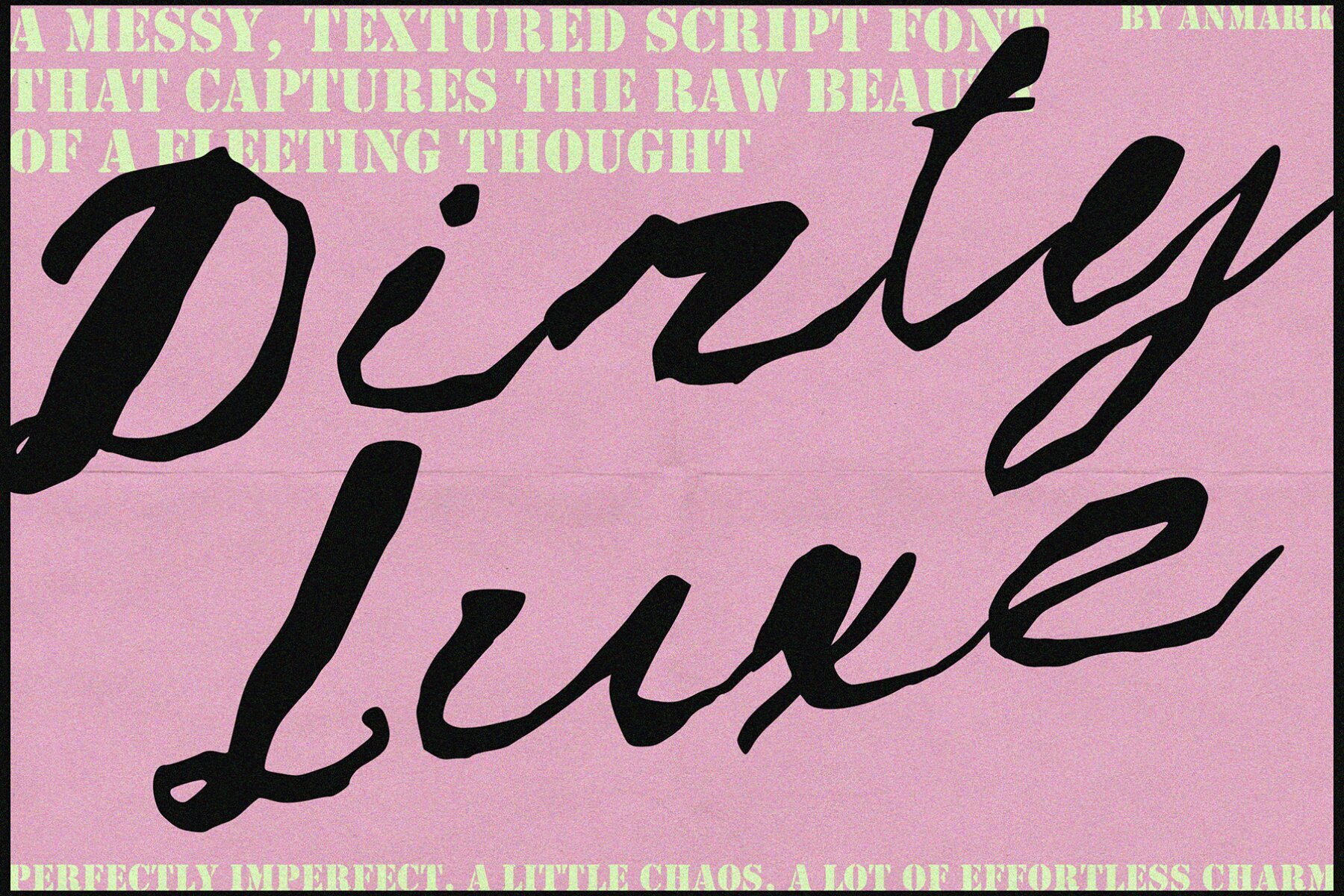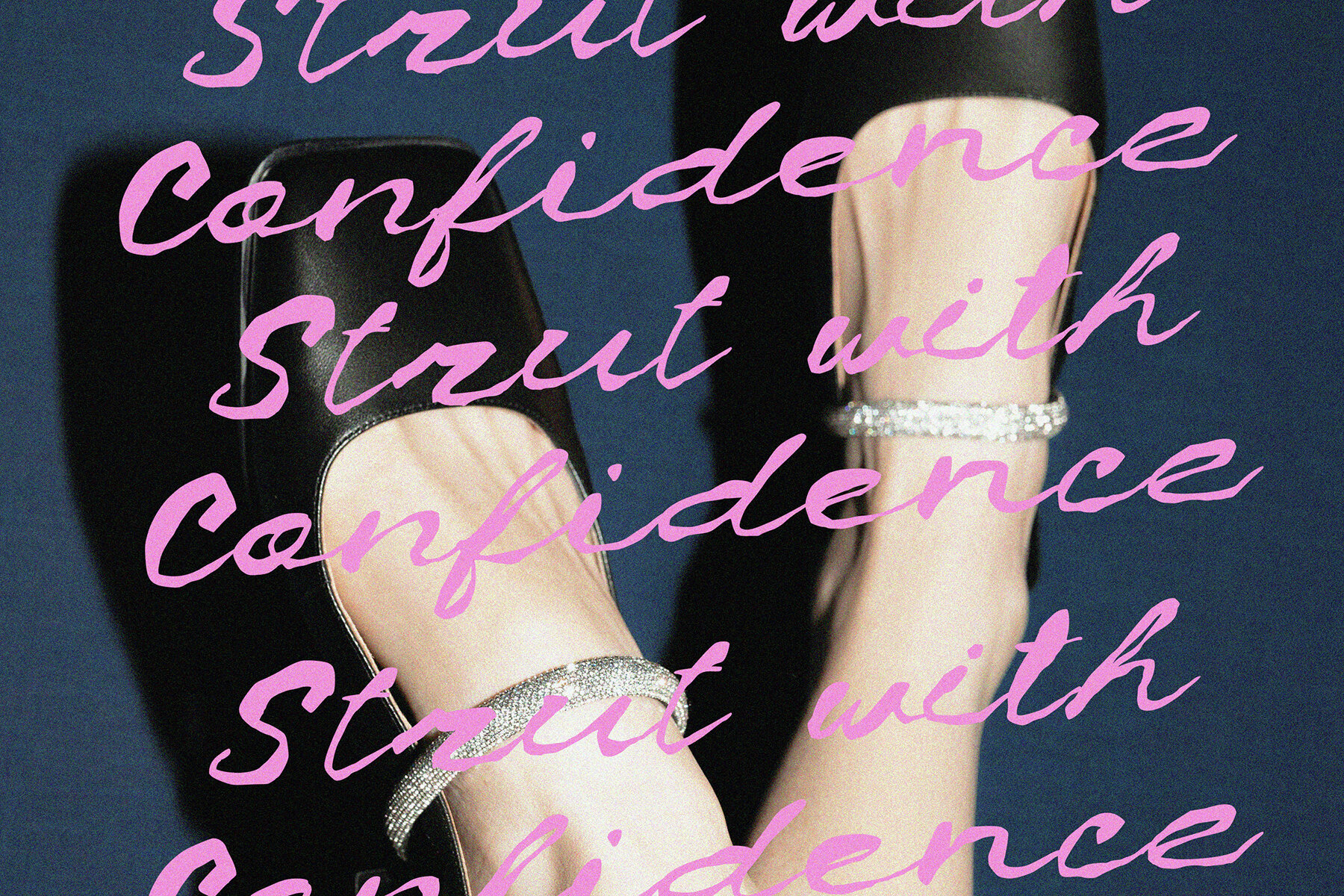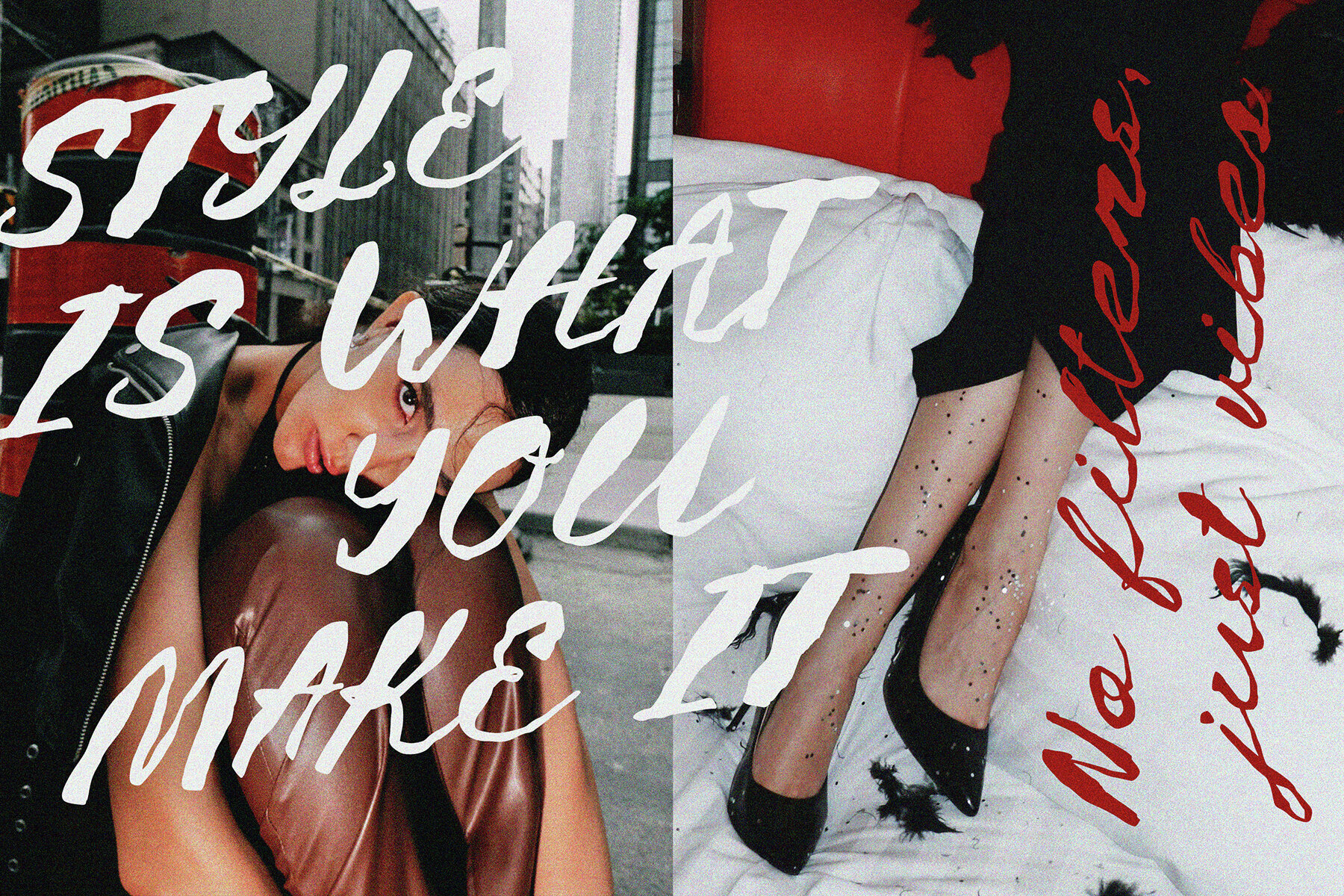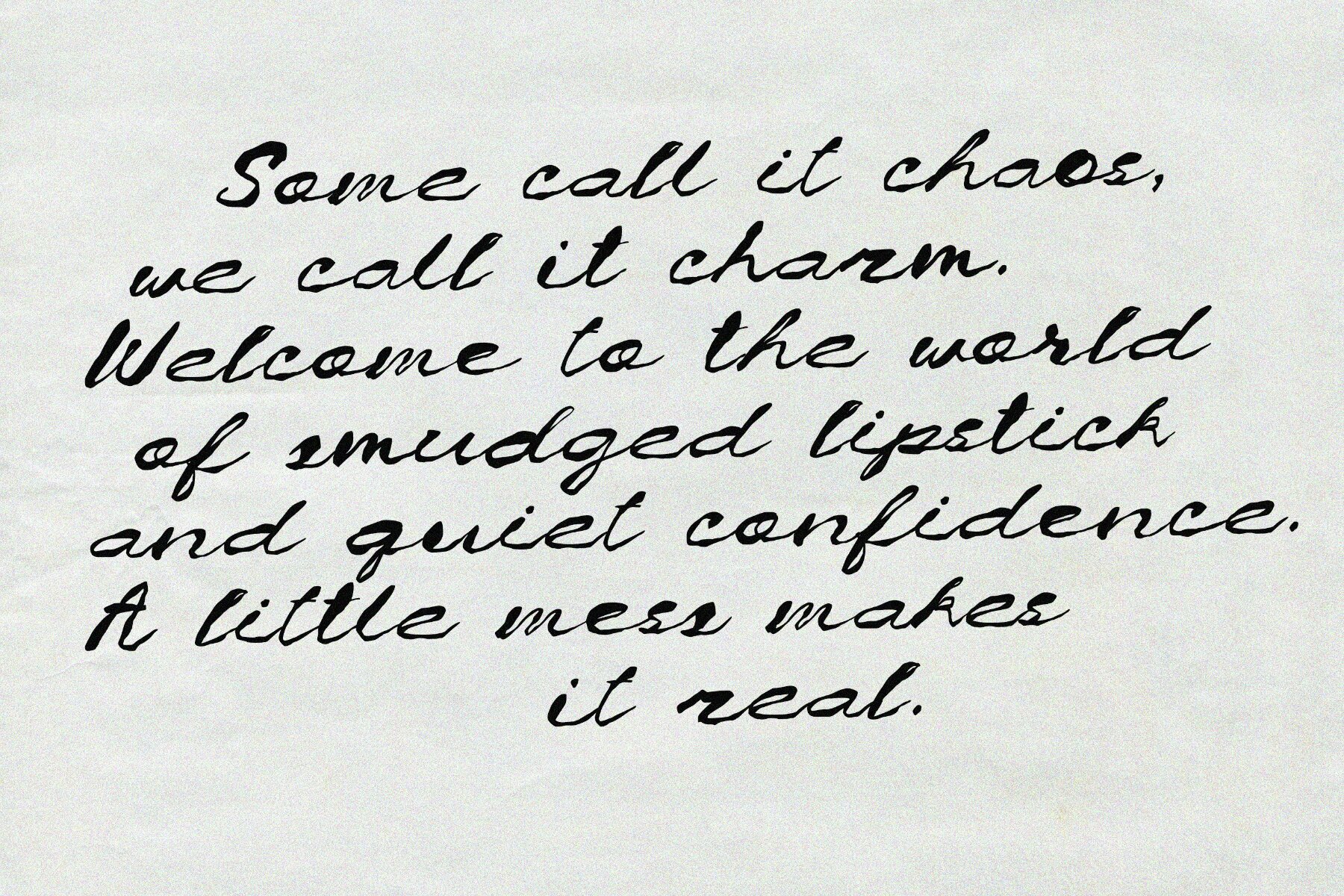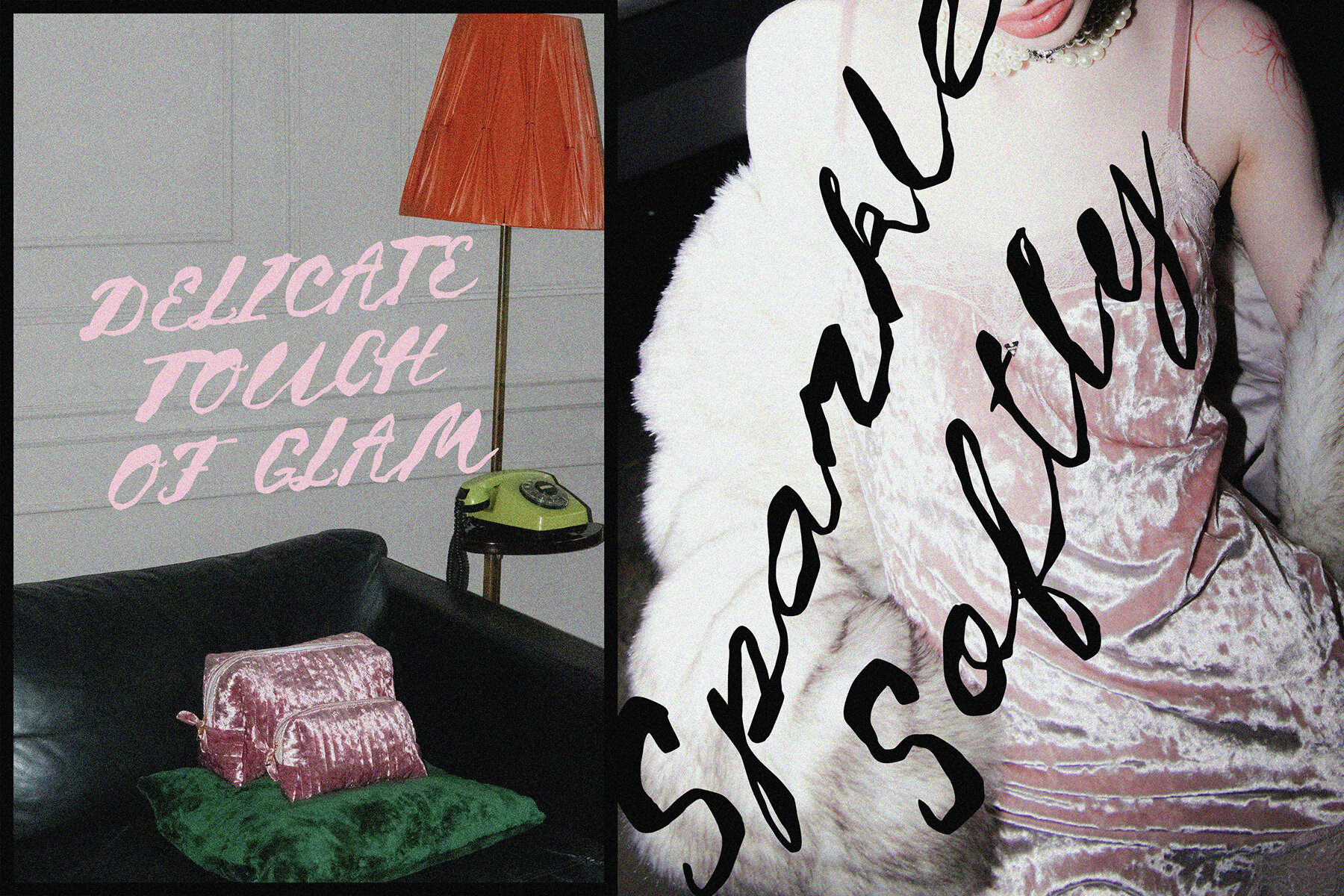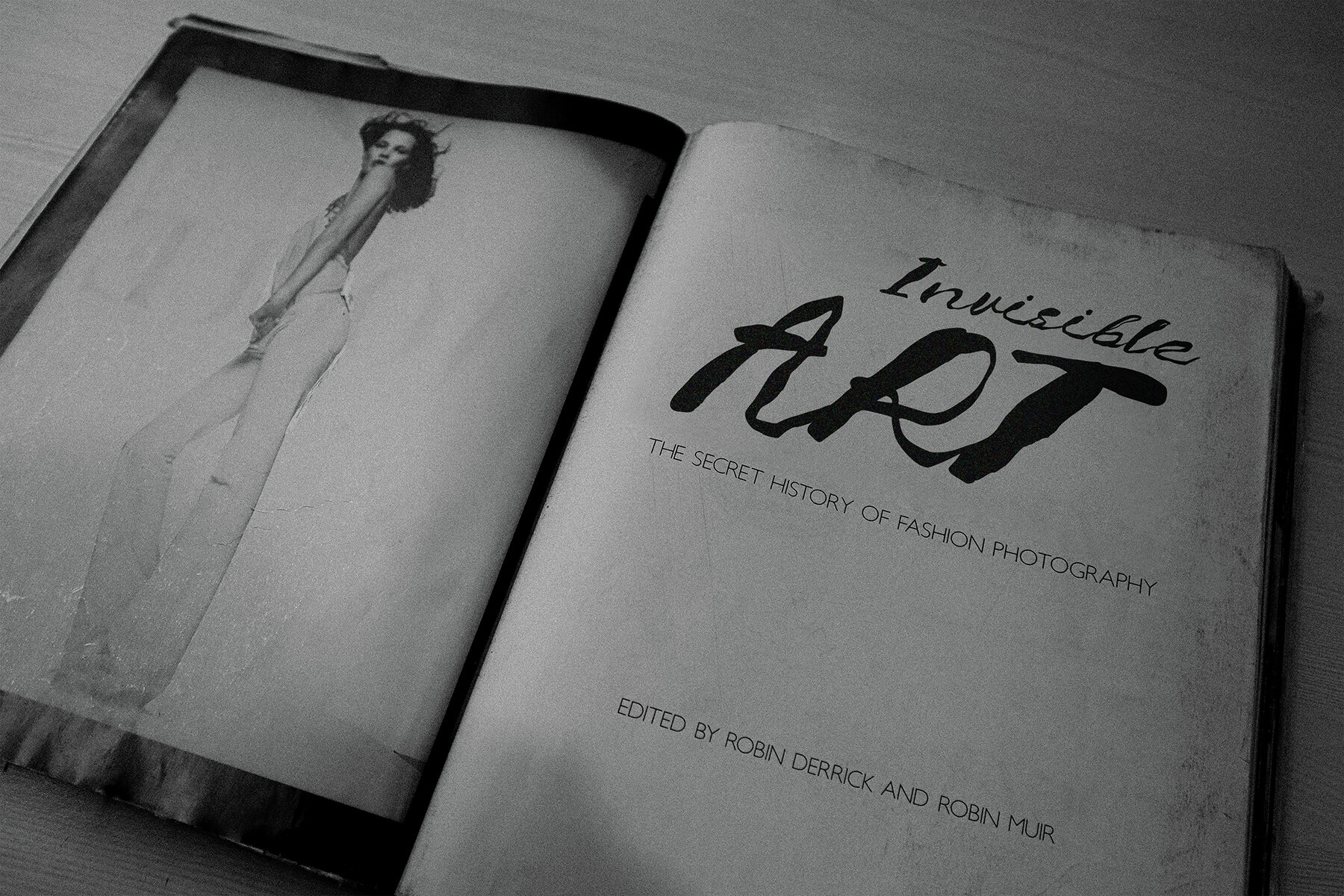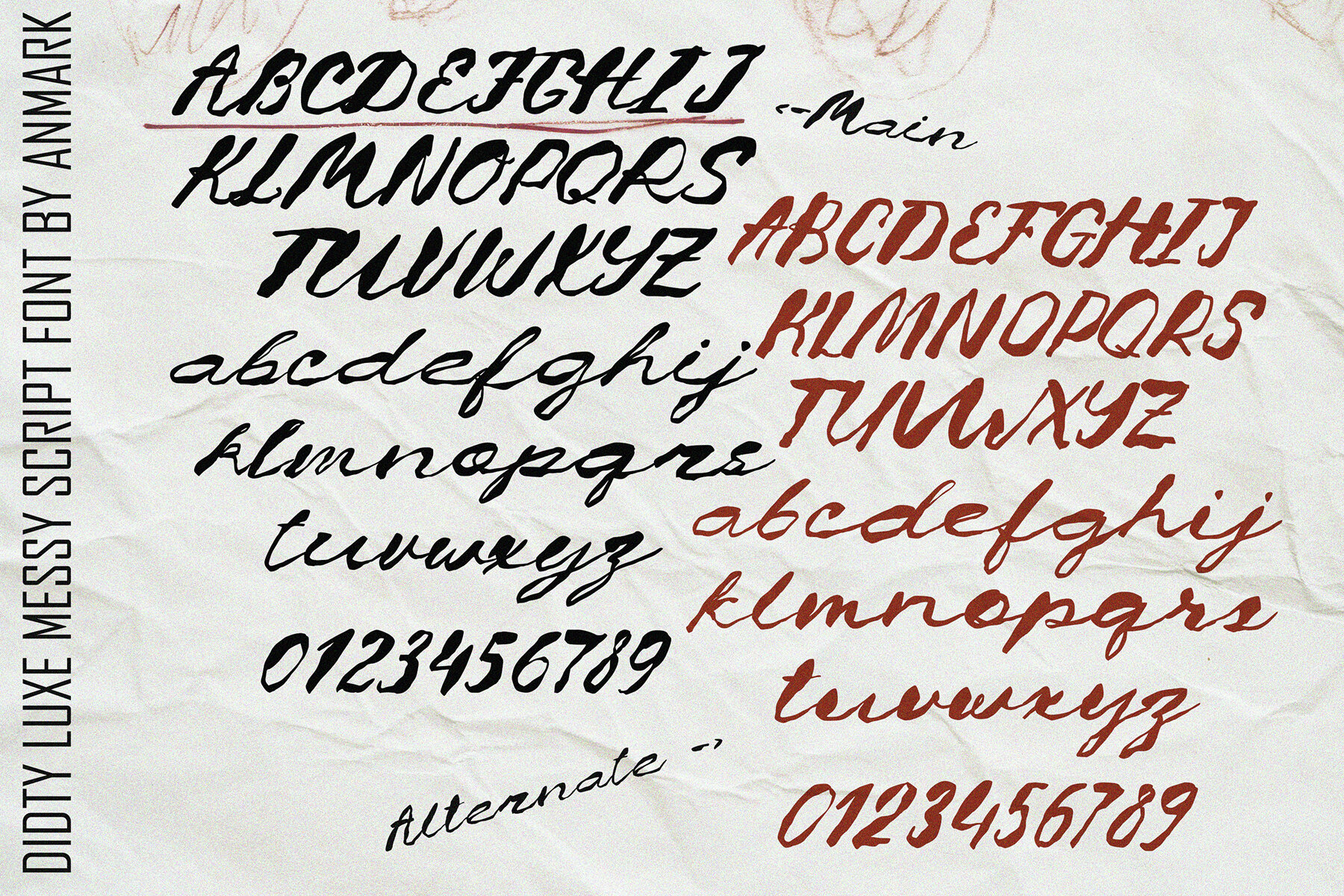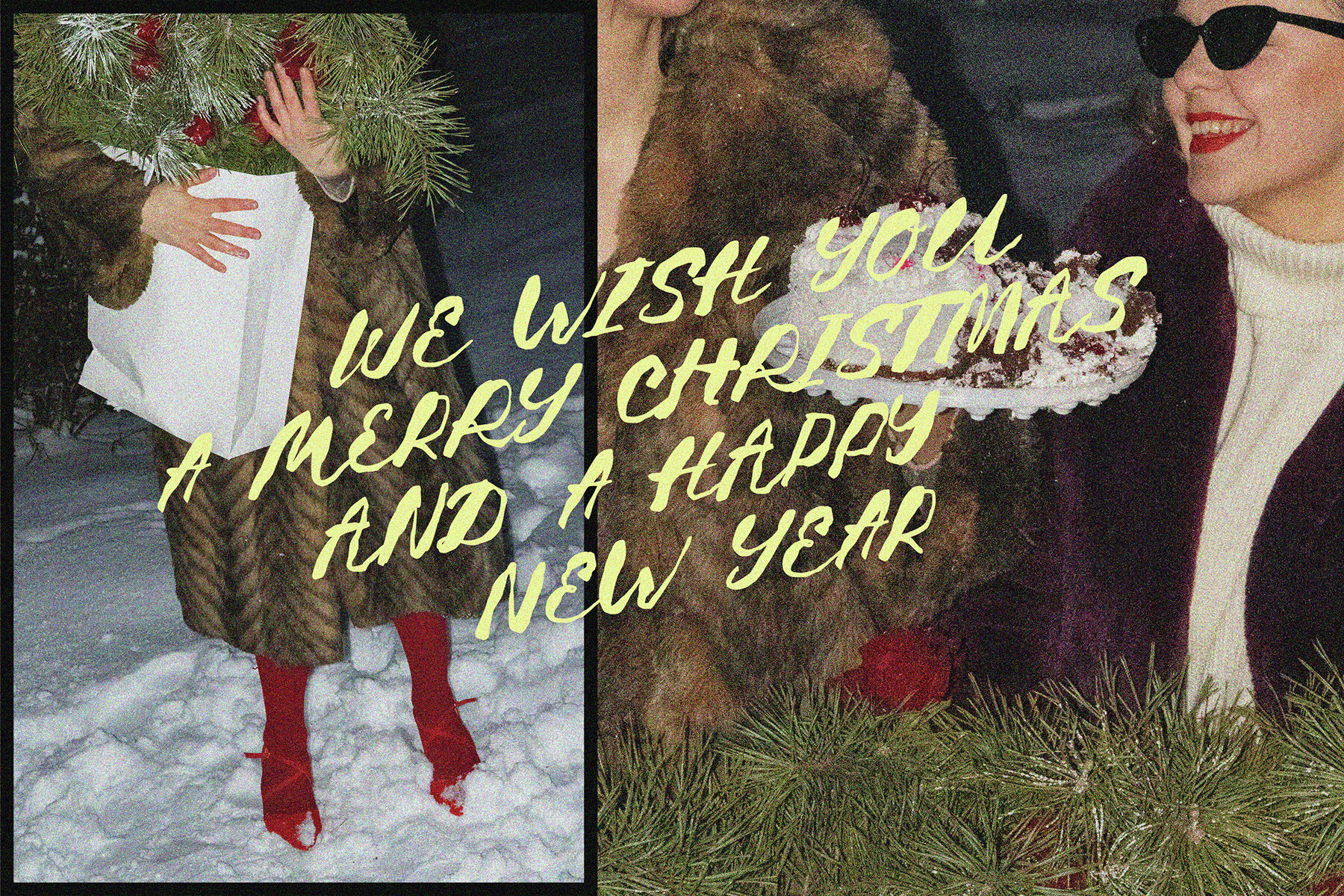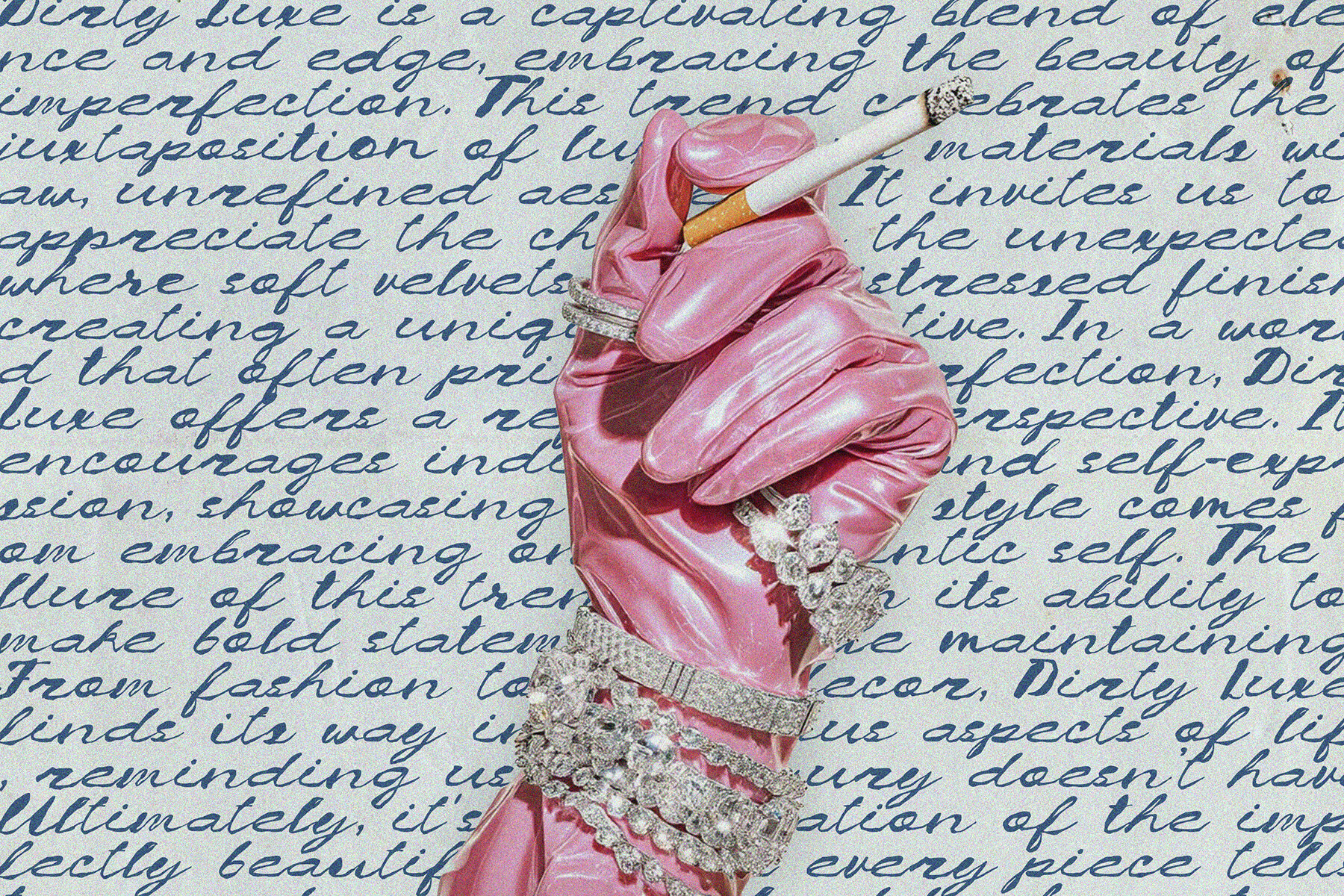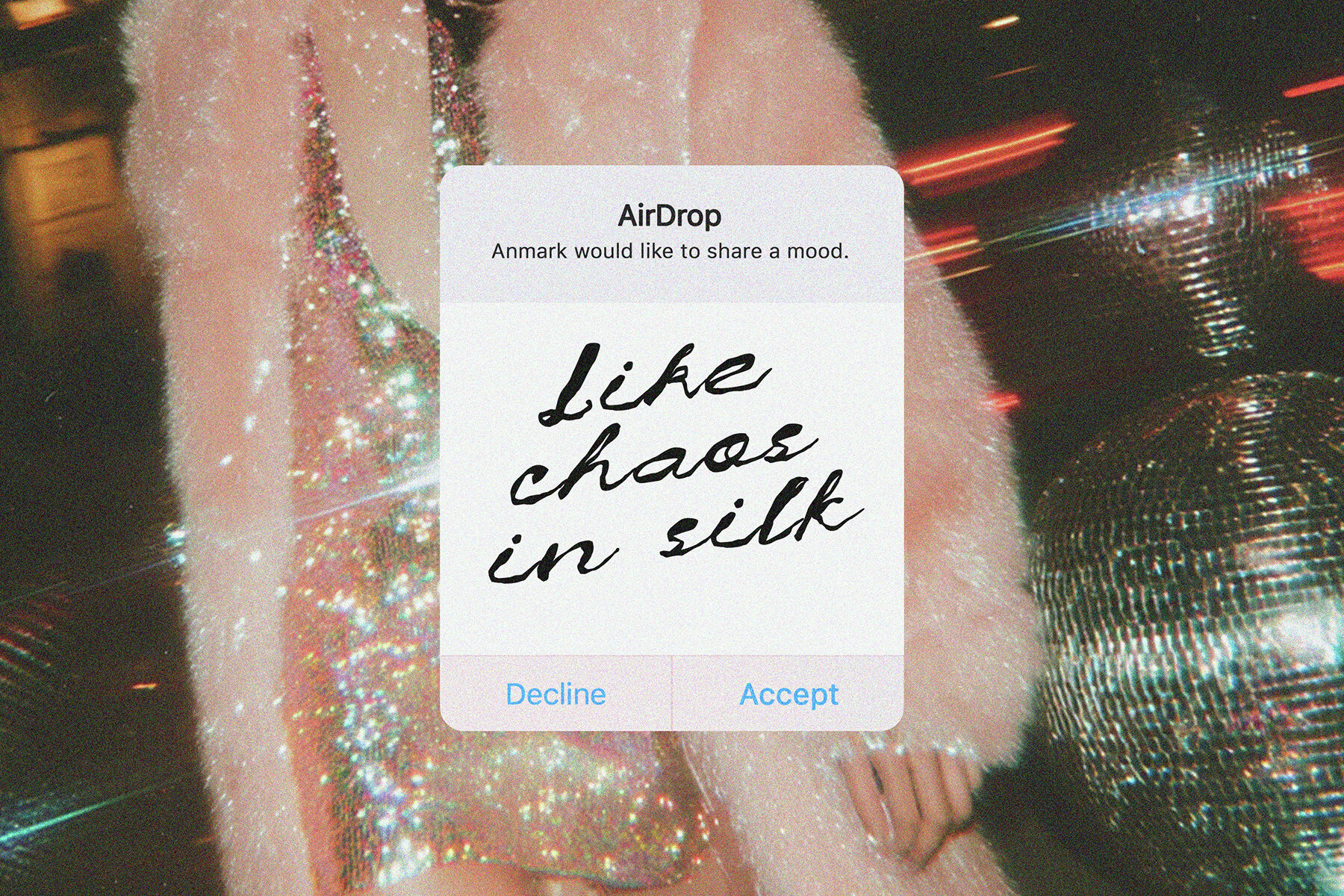
Dirty Luxe Font
Dirty Luxe
Dirty Luxe captures the essence of unrestrained creativity with its bold, handwritten script that merges raw imperfection and style. Its inky strokes appear spontaneous, reminiscent of a quick lipstick note or an ink splash transformed into art. This typeface offers endless possibilities with alternate characters for every letter and number, allowing for expressive and dynamic combinations that evoke a lively, beautifully chaotic vibe. Features:Dirty Luxe: A Script of Raw Elegance
Dirty Luxe imparts an inky, stylish, and unapologetically luxurious feel, making it a prime choice for projects seeking an authentic handwritten aesthetic.